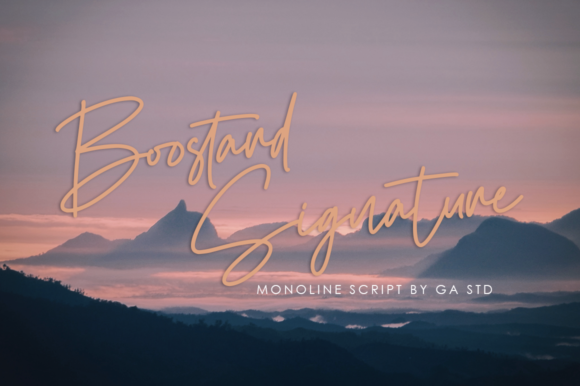
The Elusive Perfect Font: My Journey with Boostard Signature
Ah, the quest for the perfect font. We’ve all been there – stuck in the middle of a design project, scrolling through font libraries, and yet, nothing seems quite right. I recall working on a branding project for a new boutique hotel, and the client specifically asked for a “elegant and sophisticated” feel. As I poured over font options, I stumbled upon Boostard Signature – a monoline script font that promised to bring a touch of natural elegance to my designs.
First Impressions: A Love Affair with Boostard Signature
As I dove into Boostard Signature, I was immediately smitten. This font had it all – elegant characters, stunning lines, and a subtle hint of natural strokes that gave it a human touch. It’s no wonder it’s perfect for logo/branding projects, large header text, product packaging, and signatures.
• ✨ Elegant and sophisticated feel, perfect for high-end branding projects
• 💫 Beautiful natural strokes that add a touch of warmth to designs
• 🎨 Highly versatile – suitable for a wide range of creative projects
• 🤔 Limited availability of certain characters, such as ligatures or diacritical marks
• ⚠️ May not be the best fit for body text or long-form content, due to its elegant but attention-grabbing nature
The Story Behind Boostard Signature: A Designer Inspiration
Boostard Signature was designed with the intention of creating a font that would bring a touch of elegance and sophistication to designs. The designer, inspired by the natural world and the art of handwriting, crafted a font that would be both beautiful and functional. With its monoline script style and natural strokes, Boostard Signature is the perfect choice for designers looking to add a touch of refinement to their work.
Q: What type of projects is Boostard Signature best suited for?
A: Boostard Signature is perfect for logo/branding projects, large header text, product packaging, and signatures.
Q: Can I use Boostard Signature for body text or long-form content?
A: While Boostard Signature is highly legible, it may not be the best fit for body text or long-form content due to its elegant but attention-grabbing nature.
Q: Does Boostard Signature have any special features or OpenType features?
A: Yes, Boostard Signature has a range of OpenType features, including ligatures, stylistic alternates, and glyphs.
Q: Is Boostard Signature suitable for use on digital platforms?
A: Yes, Boostard Signature is highly versatile and can be used on a wide range of digital platforms, including websites, social media, and digital marketing materials.